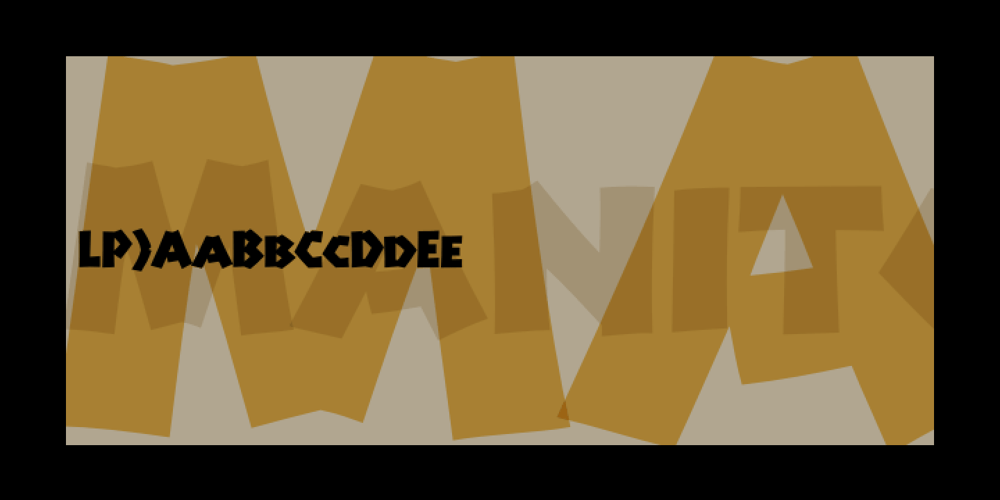
Manito LP Font Family was designed by Garrett Boge and published by LetterPerfect. Manito LP contains 1 styles and family package options. Manito was designed by Garrett Boge in 1989. He employed a wide pen and angular, sturdy forms to simulate rough-hewn woodcut letters. The font, consisting of both capitals and small caps, provides an ideal graphic complement to collateral of a natural or environmental character. It is named after a native American word for ‘Great Spirit’.